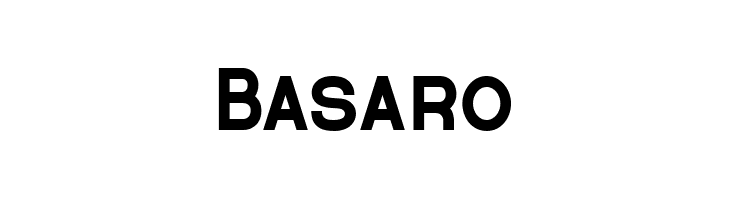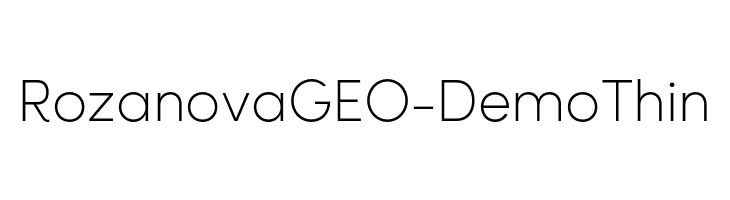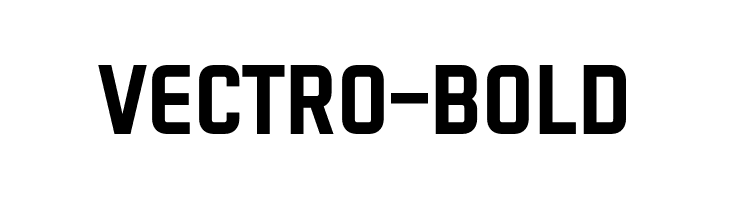
A clean, modern monospace typeface ideal for coding and technical documents.
A playful, rounded font with a hand-drawn, casual style.
A modern, bold font with circular decorative elements and a futuristic style.
A playful, hand-drawn font with rounded edges and a friendly appearance.
A sleek, modern font with an italic slant and consistent stroke width.
A tall, narrow, and modern font with clean lines and a structured appearance.
A sleek, modern, light italic font with medium contrast and condensed spacing.
A sleek, thin, and italicized modern font with a minimalist design.
A modern sans-serif font with clean lines and geometric shapes.
A modern, light sans-serif font with clean lines and excellent readability.
A bold, modern sans-serif font with high contrast and clean lines.
A modern, thin sans-serif font with a clean and minimalist design.
A sleek, modern italic font with streamlined letterforms and elegant curves.
A bold, italicized font with a strong, modern presence.
A bold, italicized font with strong, slanted letterforms for a dynamic and modern look.
A bold, modern typeface with strong, consistent strokes and high readability.
A playful, bold outline font with rounded, uniform strokes.
A modern, thin sans-serif font with clean lines and elegant simplicity.
A modern sans-serif font with geometric shapes and uniform strokes.
A thin, italicized font with a modern and elegant style.
A bold, modern sans-serif font with clean lines and strong presence.
A bold, condensed sans-serif font with a modern and professional look.
A modern, italic sans-serif font with clean lines and balanced proportions.
A modern, sans-serif typeface with clean lines and balanced proportions.
A playful, rounded font with thick, uniform strokes and a cheerful style.
A playful, casual handwritten font with smooth, rounded letters.
A modern, geometric sans-serif font with uniform strokes and clear characters.